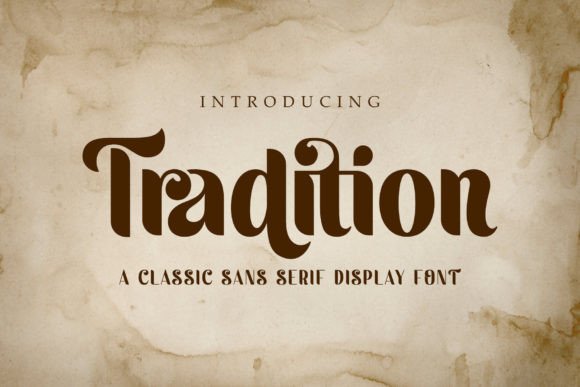
Introducing Tradition: A Timeless Display Sans Serif Font
In the world of typography, some fonts stand out for their elegance, sophistication, and timeless appeal. Tradition, a classic display sans serif font, is one such typeface that embodies these qualities. Designed to infuse your projects with a vintage charm that captivates and impresses, Tradition is perfect for a wide range of applications, from t-shirt designs and brand logos to corporate branding and business materials.
The Essence of Tradition
Tradition is more than just a font; it’s a statement of elegance and refinement. Its clean lines, precise curves, and balanced proportions make it a versatile typeface that can be used in various contexts. Whether you’re looking to create a logo that exudes sophistication, design a t-shirt that stands out from the crowd, or develop a brand identity that commands respect, Tradition is the perfect choice.
Key Features of Tradition
So, what makes Tradition a standout font? Here are some of its key features:
- Timeless Design: Tradition’s design is inspired by classic sans serif fonts, ensuring that it remains relevant and stylish for years to come.
- Elegant and Sophisticated: The font’s clean lines, precise curves, and balanced proportions give it an air of elegance and sophistication.
- Versatile: Tradition can be used in a wide range of applications, from digital media to print materials.
- Easy to Read: The font’s clear and legible design makes it easy to read, even at small sizes.
Use Cases for Tradition
Tradition is a versatile font that can be used in various contexts. Here are some of the most popular use cases:
- T-Shirt Designs: Add a touch of elegance and sophistication to your t-shirt designs with Tradition.
- Brand Logos: Create a lasting impression with a logo that exudes sophistication and refinement.
- Corporate Branding: Develop a brand identity that commands respect and inspires trust with Tradition.
- Business Materials: Use Tradition to create professional-looking business materials, such as brochures, flyers, and presentations.
Why Choose Tradition?
With so many fonts available, why choose Tradition? Here are some compelling reasons:
- Unique and Distinctive: Tradition’s classic design ensures that your projects stand out from the crowd.
- High-Quality Design: The font is designed with precision and attention to detail, ensuring that it looks great in any context.
- Timeless Appeal: The font’s timeless design ensures that your projects remain stylish and relevant for years to come.
Tips for Using Tradition
Here are some tips for getting the most out of Tradition:
- Use it Sparingly: Tradition is a bold font, so use it sparingly to make a greater impact.
- Experiment with Colors: Try out different colors to find the perfect match for your project.
- Pair it with Other Fonts: Tradition pairs well with other fonts, so don’t be afraid to experiment with different combinations.
- Pay Attention to Kerning: Make sure to adjust the kerning to ensure that the font looks great in any context.
In conclusion, Tradition is a timeless display sans serif font that embodies elegance and sophistication. Perfect for a wide range of applications, from t-shirt designs and brand logos to corporate branding and business materials, Tradition is designed to infuse your projects with a vintage charm that captivates and impresses. With its clean lines, precise curves, and balanced proportions, Tradition is the perfect choice for anyone looking to add a touch of elegance and refinement to their projects.
- What is Tradition?: Tradition is a classic display sans serif font designed to infuse your projects with a vintage charm.
- What is Tradition used for?: Tradition can be used in a wide range of applications, from t-shirt designs and brand logos to corporate branding and business materials.
- Is Tradition easy to read?: Yes, Tradition is designed to be clear and legible, making it easy to read even at small sizes.